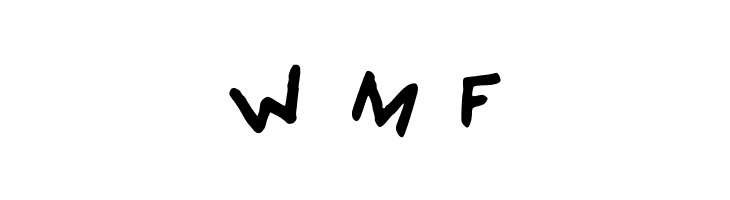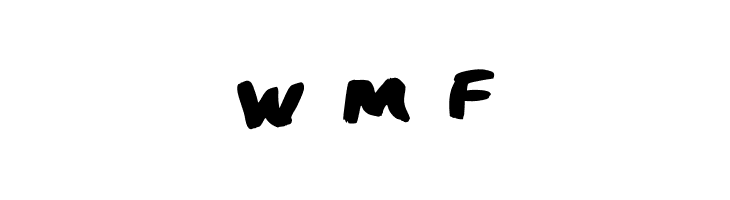
GennaroPalmieri Font
A playful, handwritten font with fluid strokes and a dynamic, informal style.
Gennaro Palmieri Bold Black Medium Font
A bold, handwritten-style font with a dynamic and expressive character.
Gennaro_Palmieri_Drafting Medium Font
A playful, hand-drawn font with bold, irregular strokes and a casual style.
Gennaro_Palmieri_HP_Pencil Medium Font
A hand-drawn, pencil-like font with a textured, sketchy appearance.
Gennaro Palmieri Formal Medium Font
A playful, handwritten font with a casual and informal style.
GennaroPalmieriDraftsman_3D Medium Font
A bold, 3D font with a playful and dynamic style, featuring shadowed outlines.
GennaroPalmieriThorny_3D Medium Font
A bold, 3D font with thorn-like edges and high contrast.
GennaroPalmieriThorny Font
A thorny, edgy font with jagged, vine-like characters.
Gennaro_Palmieri_Formal_3D Medium Font
A bold, 3D formal font with sharp edges and a shadow effect.
GennaroPalmieriDots_3D Medium Font
A bold, 3D-effect font with a playful and sophisticated style.
Gennaro Palmieri Sharpie 2016 Regular Font
Gennaro Palmieri
A playful, handwritten font with bold, rounded characters.
GennaroPalmieriDots2012 Font
A playful, dotted script font with artistic flair.
GennaroPalmieriHectic_3D Medium Font
A bold, 3D script-decorative font with dynamic shadow effects.
GennaroPalmieriHectic Font
A dynamic, handwritten-style font with fluid, cursive-like strokes.
GennaroPalmieriCursive_3D Medium Font
A dynamic cursive font with a 3D effect, offering elegance and depth.
Gennaro_Palmieri_Niagara_3D Medium Font
Gennaro Palmieri
A bold, 3D decorative font with a playful and dynamic style.
GennaroPalmieriCursive Font
Gennaro Palmieri
A dynamic cursive font with bold strokes and elegant flow.